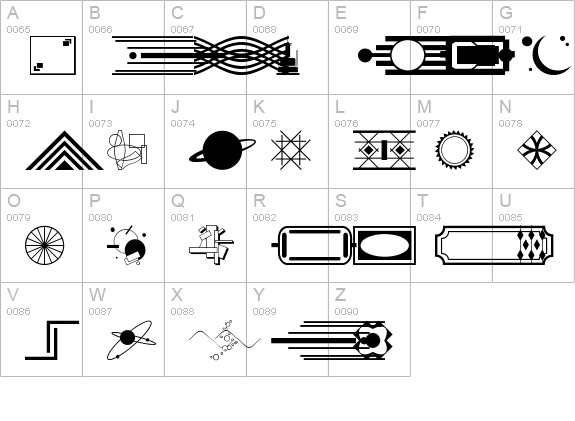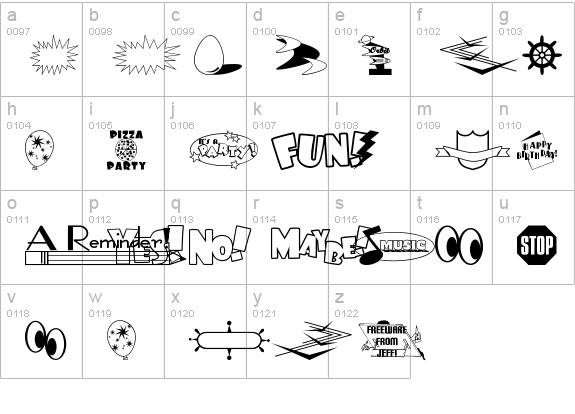
Decorative Elements JL Font Details
The Decorative Elements JL font is a stunning display typeface that will add a touch of elegance and sophistication to any design project. With its intricate and ornate details, this font is perfect for creating eye-catching headings, titles, and logos. The delicate swirls and flourishes of Decorative Elements JL will bring a sense of beauty and charm to your designs. The best part is that this font is available for free download at FontsMarket.com. Now you can easily access this gorgeous typeface and incorporate its unique style into your creative projects. Whether you're working on invitations, posters, or branding materials, Decorative Elements JL is sure to make a bold statement and leave a lasting impression. Download it today and elevate your designs with this exquisite font.